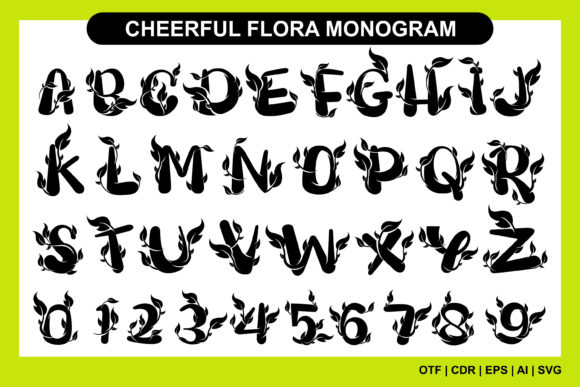
In a world saturated with uniformity, let your creativity bloom with Cheerful Flora Monogram, a decorative font that captures the essence of nature's charm. Inspired by the delicate intricacies of leaves and flowers, this font offers a refreshing take on traditional typography. With its intricate details and elegant curves, Cheerful Flora Monogram adds a touch of whimsical beauty to any project, transforming it into a masterpiece.
Unleash your inner artist and explore the endless possibilities that await you with Cheerful Flora Monogram. Create enchanting wedding invitations that capture the joy and romance of your special day. Design captivating stationary art that reflects your unique style and personality. Craft eye-catching social media posts that stand out from the crowd and leave a lasting impression. Bring a touch of warmth and charm to your greeting cards, making them cherished keepsakes for your loved ones.
Welcome to a world where creativity knows no bounds. Cheerful Flora Monogram invites you to embrace your individuality and let your imagination run wild. Whether you're a seasoned designer or just starting your creative journey, this font is your passport to a world of boundless expression.
With Cheerful Flora Monogram, you'll discover a font that effortlessly blends elegance and playfulness. Its intricate leaf ornaments add a touch of whimsy, while its clean lines ensure readability and clarity. This harmonious balance makes it the perfect choice for a wide range of projects, from formal invitations to casual social media posts.
Let Cheerful Flora Monogram be your creative companion, guiding you towards projects that are as unique and captivating as you are. Embrace the beauty of nature and allow your creativity to flourish with this enchanting font.